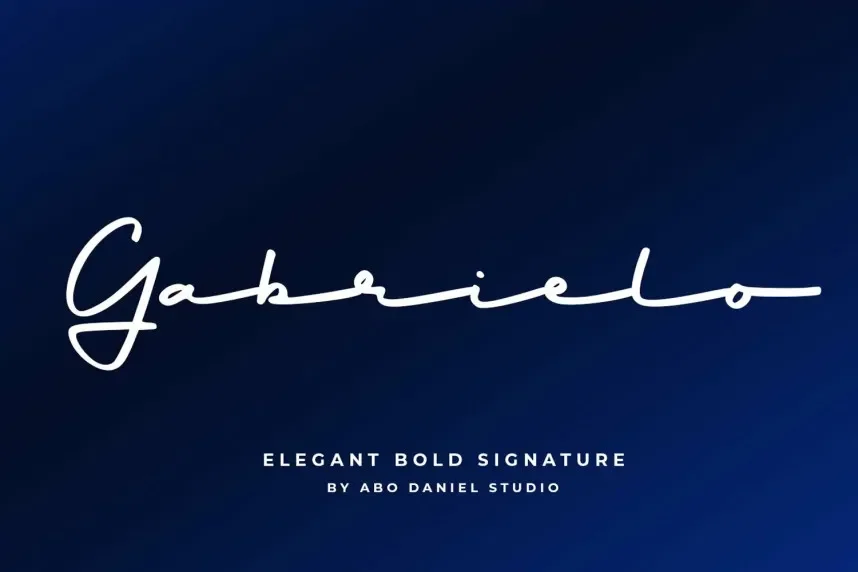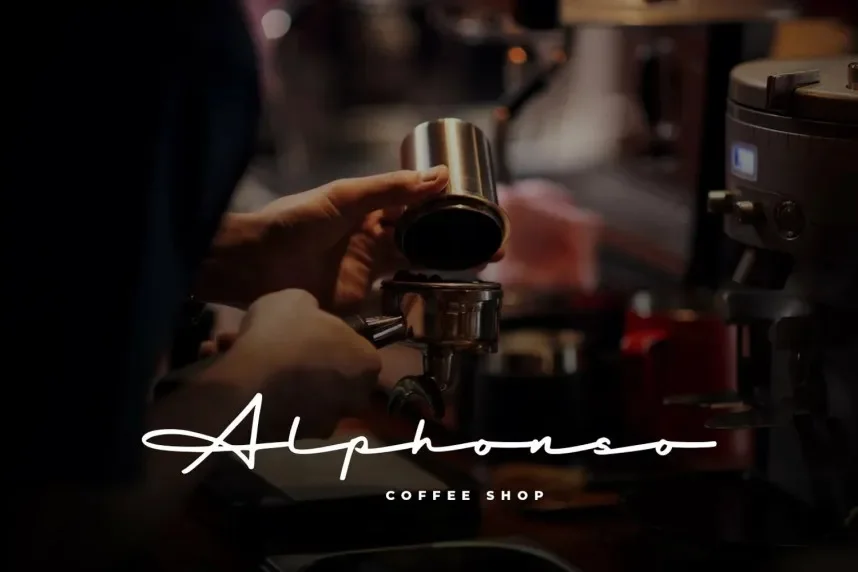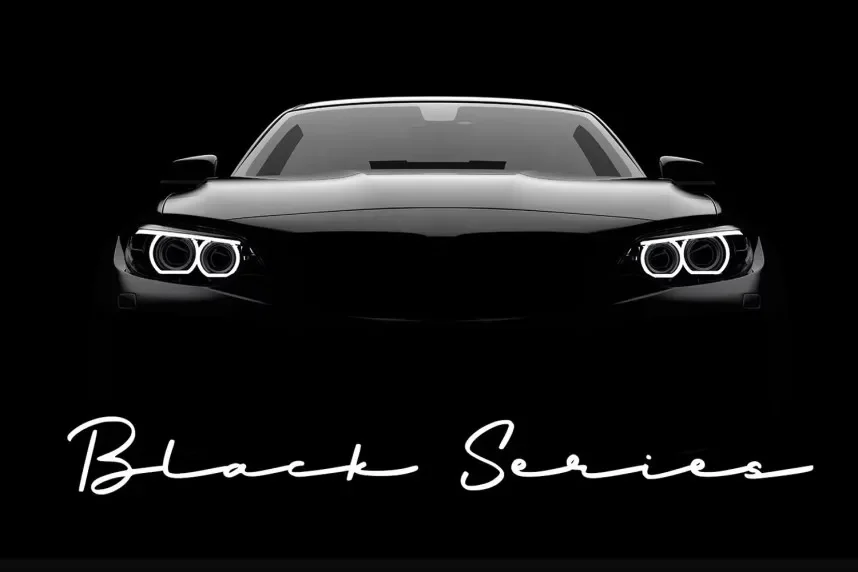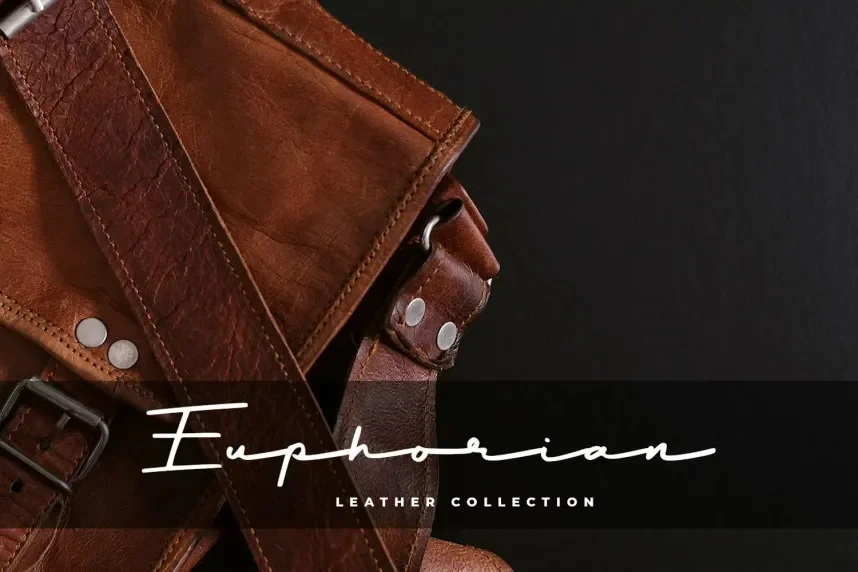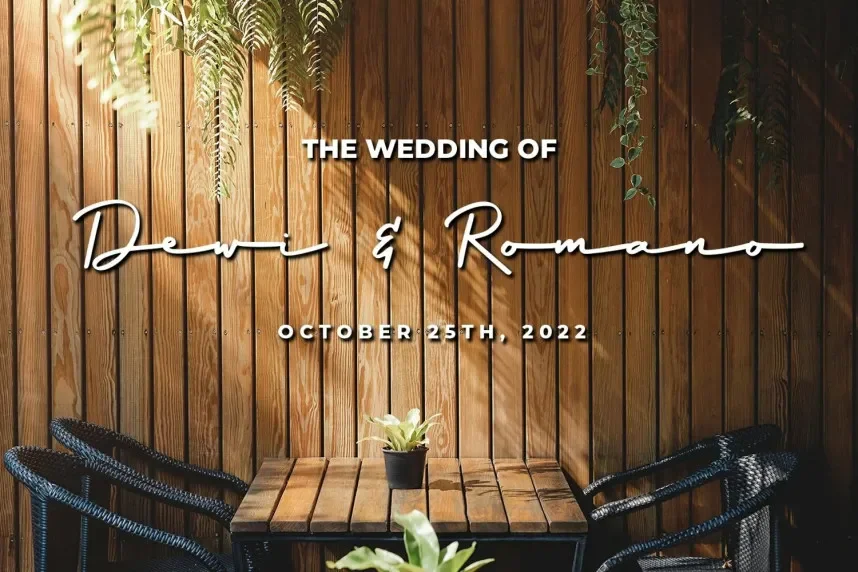
Gabrielo Elegant Bold Signature Font addresses a common design problem: creating signature-style branding that remains readable across logos, social media, and printed materials. Many script fonts lose clarity at small sizes, especially in digital signatures and brand marks.
Gabrielo is a bold signature script font designed with smooth curves, connected letterforms, and consistent stroke weight. The strokes show moderate contrast, while rounded terminals improve legibility. Ligatures help maintain natural handwriting flow without excessive swashes, keeping the font controlled and usable.